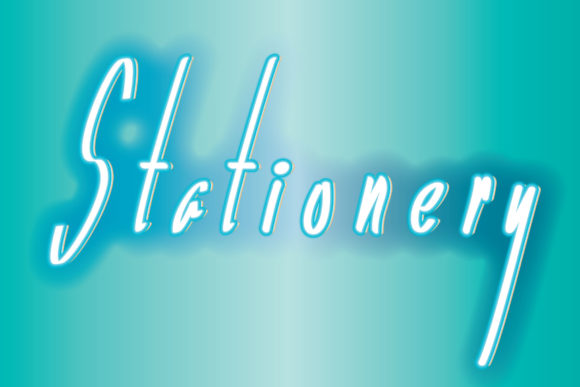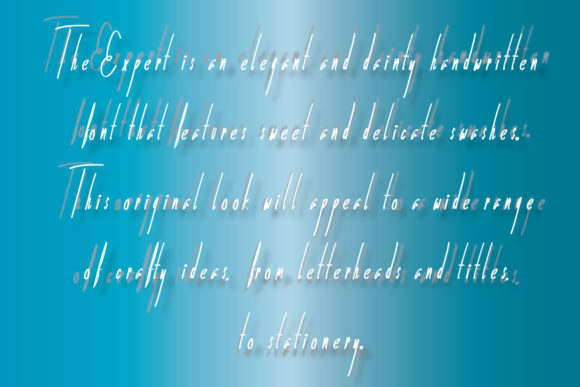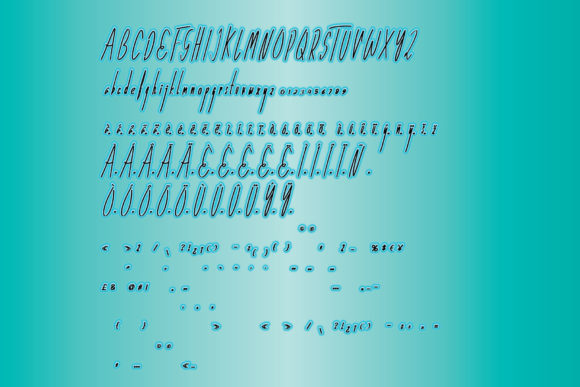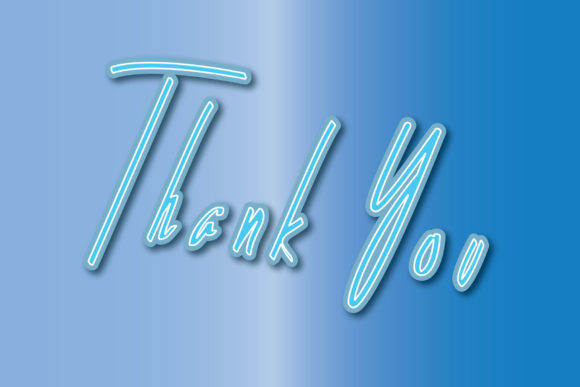
Introduction to Place of Business Font
Place of Business is an elegant script font with a contemporary atmosphere and impeccable form, inspired by timeless classic calligraphy.
Not too thin and not too thick, balanced and varied, this font was designed to enhance the beauty of your projects .